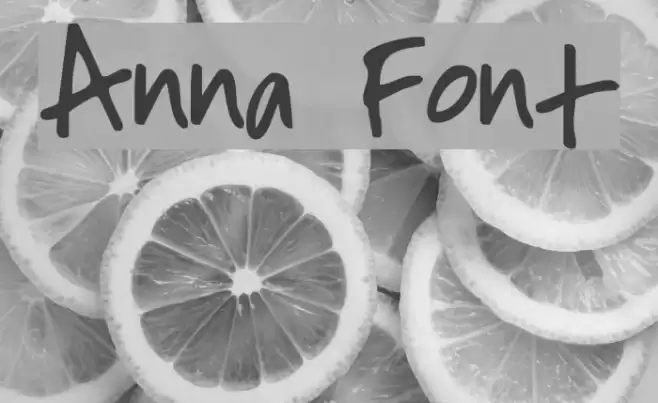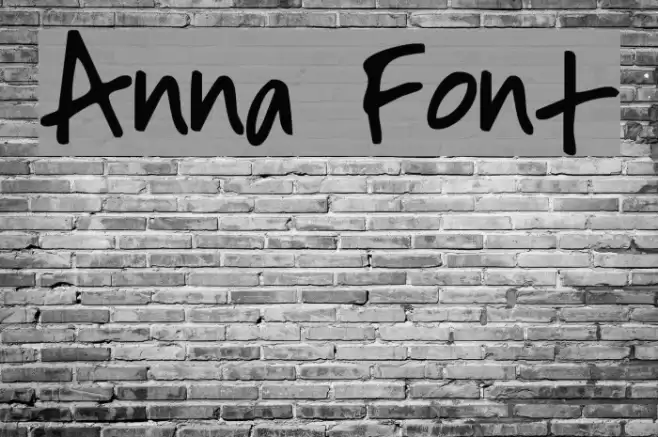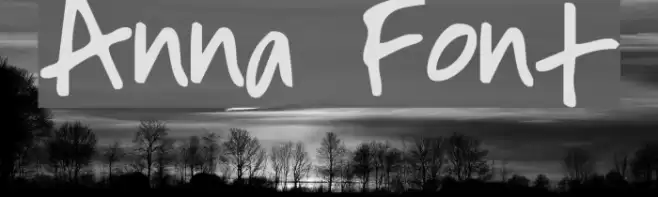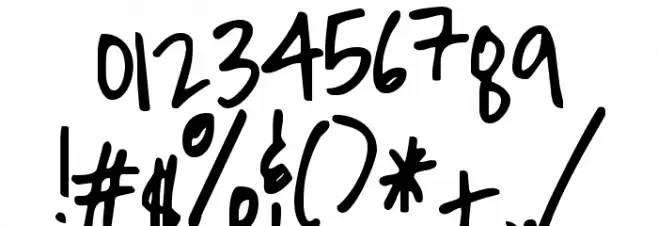
Anna Font
Anna Description
This font exhibits a casual, handwritten style with a playful and informal appearance. The letters are unevenly sized, with a dynamic and spontaneous feel, resembling natural handwriting. The strokes are bold and slightly irregular, adding to the font's charm and authenticity. The uppercase and lowercase letters maintain a consistent style, with rounded edges and a slight slant, enhancing the handwritten effect. Numbers and special characters are included, matching the overall aesthetic with the same lively and freeform design. This font is ideal for projects that require a personal touch or a relaxed, approachable vibe.
A casual, handwritten font with bold, irregular strokes and a playful style from Uncategorized fonts.
- Proposed Projects: Great for greeting cards, personal blogs, casual branding, or any project needing a personal touch.
- Overall Style: Casual, Playful
- Use Case: Headlines, Informal text, Personal projects